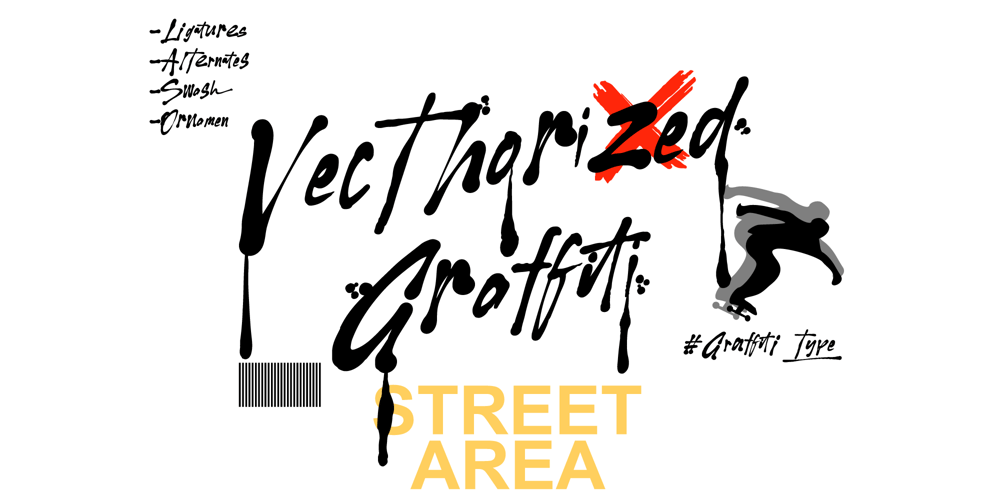
Vecthorized Font Family was designed by ryan creative and published by ryan creative. Vecthorized contains 1 styles and family package options. hello creatives Introducing Vecthorized Graffiti which is inspired by street shooting writing which has a unique appearance with the addition of Alternate, Ligature, Swash and is accompanied by additional ornaments that you can adjust to your own style. Can be applied such as t-shirt designs, stickers, image styles, etc.FEATURES; Upper and lower case letters. Support Foreign, Numbers and Punctuation. Alternates, Ligatures, Swashes and Ornaments Works on PC and Mobile. Simple installation. Can be accessed in Adobe Illustrator, Adobe Photoshop. Adobe InDesign, even works in Microsoft Word. Fully accessible without additional design software. Vecthorized is encoded with Unicode PUA, which allows full access to all additional characters without having to design any special software. Mac users can use the Font book, and Windows users can use the Character map to view and copy any additional characters to paste into your favorite text editor/app.Thank you for visiting ๐